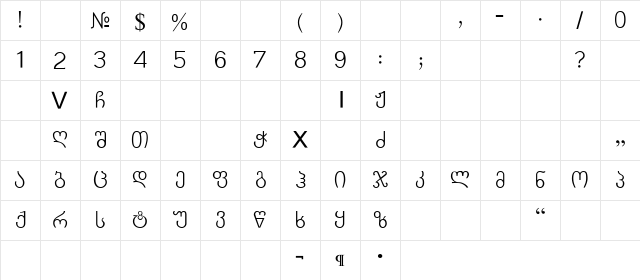
IliaMTAV Normal
Design Context for IliaMTAV Typeface
IliaMTAV is a composed and adaptable typeface that performs quietly and consistently across a wide range of design contexts.